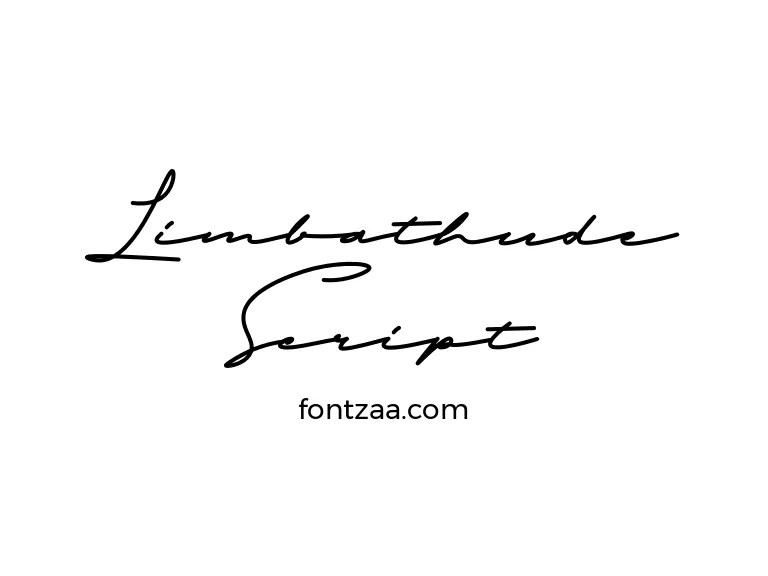
Limbathude Script Font is a elegant typeface created for designers who want typography with a distinctive visual identity. Limbathude Script Font brings a elegant personality to typography and gives designers a flexible starting point for creative display work. Testing several arrangements before choosing the final version can reveal which characteristics of the typeface work best. Its letter shapes become especially noticeable at larger sizes, where spacing and proportions can be explored more clearly. Using generous space around the lettering can help the details of the typeface remain visible instead of competing with other elements. Creative uses may range from invitations, wedding stationery, signatures, quotes and elegant branding, with different results depending on scale and layout. A clean serif or sans serif companion can handle smaller text while this font remains focused on headlines and key messages. Designers should evaluate the typeface inside the real project because a standalone preview cannot show every possible visual combination. The available source information lists Namara Creative Studio as the designer or publisher. Current license information is shown as Free for personal use; checking the original documentation is recommended before client or commercial work. Its final appearance will depend heavily on the surrounding colors, imagery, spacing and supporting typography.
Limbathude Script Font brings a elegant personality to typography and gives designers a flexible starting point for headlines, branding and promotional layouts. The typeface can change considerably depending on tracking, scale, alignment, background and surrounding imagery. The font can work as the primary visual element in a minimal layout or as part of a more detailed composition. Its letter shapes become especially noticeable at larger sizes, where spacing and proportions can be explored more clearly. Possible applications include invitations, wedding stationery, signatures, quotes and elegant branding. Print and digital layouts may require different sizing and spacing, so testing the actual output dimensions is recommended. Designers should evaluate the typeface inside the real project because a standalone preview cannot show every possible visual combination. Source metadata currently associates the font with Namara Creative Studio. License details are currently listed as Free for personal use. Users should verify the supplied documentation before using the font in products or paid projects. A few quick layout variations can help determine where the font creates the strongest visual result.
With its distinctive letterforms, Limbathude Script Font can introduce a elegant character into digital and print projects. Testing several arrangements before choosing the final version can reveal which characteristics of the typeface work best. Its letter shapes become especially noticeable at larger sizes, where spacing and proportions can be explored more clearly. The typeface can change considerably depending on tracking, scale, alignment, background and surrounding imagery. The font can be considered for projects such as invitations, wedding stationery, signatures, quotes and elegant branding. For layouts containing longer information, pairing it with a simpler supporting typeface can improve readability and hierarchy. A clean serif or sans serif companion can handle smaller text while this font remains focused on headlines and key messages. According to the available font information, the typeface is associated with Namara Creative Studio. Current license information is shown as Free for personal use; checking the original documentation is recommended before client or commercial work. Its final appearance will depend heavily on the surrounding colors, imagery, spacing and supporting typography.
Limbathude Script Font Family
The Limbathude Script Font Family gives designers a flexible display option that can be adapted through changes in size, spacing, alignment and color. The visual character of Limbathude Script Font makes it an interesting choice for designers working on font-family exploration. Using generous space around the lettering can help the details of the typeface remain visible instead of competing with other elements. The typeface can change considerably depending on tracking, scale, alignment, background and surrounding imagery. Its letter shapes become especially noticeable at larger sizes, where spacing and proportions can be explored more clearly. Creative uses may range from invitations, wedding stationery, signatures, quotes and elegant branding, with different results depending on scale and layout. Print and digital layouts may require different sizing and spacing, so testing the actual output dimensions is recommended. Keeping secondary typography simple often allows the distinctive qualities of the main font to remain more visible. The available source information lists Namara Creative Studio as the designer or publisher. Current license information is shown as Free for personal use; checking the original documentation is recommended before client or commercial work. Experimenting directly in the intended design is usually the best way to judge whether the typeface suits the project.
Tips for Better Results With Limbathude Script Font
Designers exploring a elegant typeface can use Limbathude Script Font to add a more recognizable visual voice to spacing, contrast, scale and layout decisions. Testing several arrangements before choosing the final version can reveal which characteristics of the typeface work best. Different color combinations can make the same font feel subtle, energetic, premium or highly decorative. Its letter shapes become especially noticeable at larger sizes, where spacing and proportions can be explored more clearly. Possible applications include invitations, wedding stationery, signatures, quotes and elegant branding. A clean serif or sans serif companion can handle smaller text while this font remains focused on headlines and key messages. Previewing the final layout on both large and small screens helps identify spacing and readability problems early. The available source information lists Namara Creative Studio as the designer or publisher. License details are currently listed as Free for personal use. Users should verify the supplied documentation before using the font in products or paid projects. Its final appearance will depend heavily on the surrounding colors, imagery, spacing and supporting typography.
Using Limbathude Script Font for Posters and Social Media
Limbathude Script Font stands out through its individual shapes and can become an important visual element in posters, campaigns, thumbnails and promotional content. Its letter shapes become especially noticeable at larger sizes, where spacing and proportions can be explored more clearly. Testing several arrangements before choosing the final version can reveal which characteristics of the typeface work best. The font can work as the primary visual element in a minimal layout or as part of a more detailed composition. Possible applications include invitations, wedding stationery, signatures, quotes and elegant branding. Previewing the final layout on both large and small screens helps identify spacing and readability problems early. A clean serif or sans serif companion can handle smaller text while this font remains focused on headlines and key messages. The available source information lists Namara Creative Studio as the designer or publisher. License details are currently listed as Free for personal use. Users should verify the supplied documentation before using the font in products or paid projects. Testing the font with the actual project text can provide a much better impression than viewing isolated sample characters.
Branding Ideas With Limbathude Script Font
Limbathude Script Font stands out through its individual shapes and can become an important visual element in logos, wordmarks and visual identity systems. Its letter shapes become especially noticeable at larger sizes, where spacing and proportions can be explored more clearly. Different color combinations can make the same font feel subtle, energetic, premium or highly decorative. Testing several arrangements before choosing the final version can reveal which characteristics of the typeface work best. Designers may explore it across invitations, wedding stationery, signatures, quotes and elegant branding, depending on the tone and requirements of the project. Designers should evaluate the typeface inside the real project because a standalone preview cannot show every possible visual combination. Previewing the final layout on both large and small screens helps identify spacing and readability problems early. The available source information lists Namara Creative Studio as the designer or publisher. Current license information is shown as Free for personal use; checking the original documentation is recommended before client or commercial work. A few quick layout variations can help determine where the font creates the strongest visual result.
Visual Features of Limbathude Script Font
Limbathude Script Font brings a elegant personality to typography and gives designers a flexible starting point for the visual characteristics and design personality of the typeface. Different color combinations can make the same font feel subtle, energetic, premium or highly decorative. The font can work as the primary visual element in a minimal layout or as part of a more detailed composition. Testing several arrangements before choosing the final version can reveal which characteristics of the typeface work best. Its display-focused appearance makes it worth testing in invitations, wedding stationery, signatures, quotes and elegant branding. Keeping secondary typography simple often allows the distinctive qualities of the main font to remain more visible. Previewing the final layout on both large and small screens helps identify spacing and readability problems early. According to the available font information, the typeface is associated with Namara Creative Studio. License details are currently listed as Free for personal use. Users should verify the supplied documentation before using the font in products or paid projects. Testing the font with the actual project text can provide a much better impression than viewing isolated sample characters.